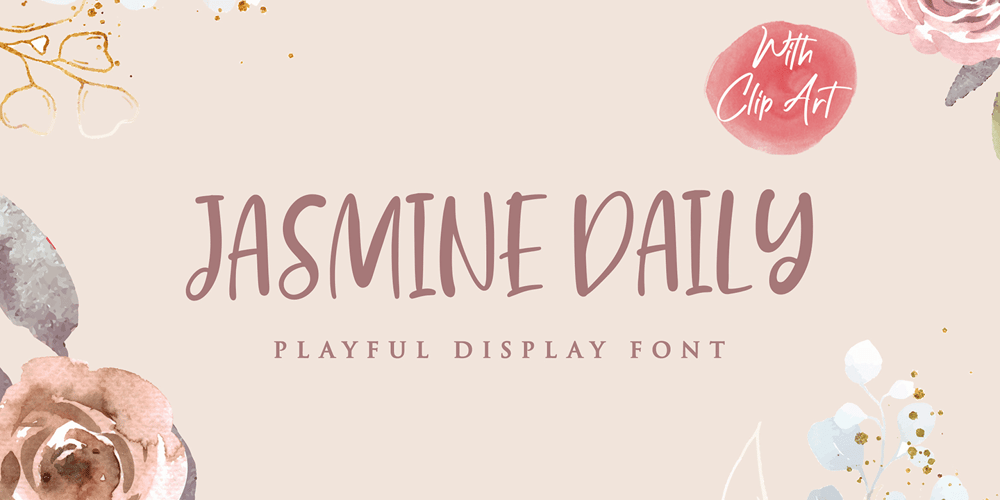
Jasmine Daily Font Family was designed by Virgiawan Listanto and published by Stringlabs Creative Studio. Jasmine Daily contains 1 styles and family package options. Jasmine Daily is a sweet playful display font with an elegant style. Fall in love with its dynamic charm, and make this fancy display part of your craft library. It will elevate a wide range of design projects to the highest level, be it branding, headings, wedding designs, invitations, signatures, logos, labels, and much more!